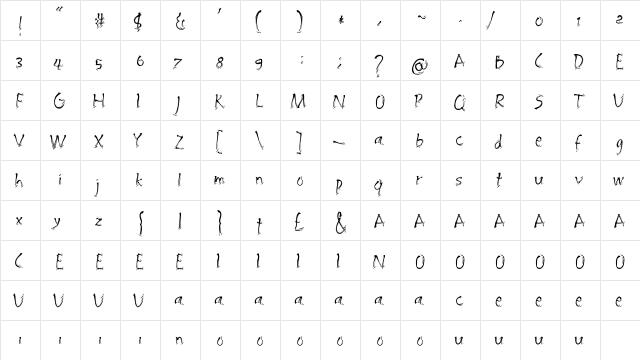
Embrush Regular
Design Context for Embrush Typeface
Embrush flows with the natural rhythm of handwritten lettering, making it ideal for designs that call for warmth and personal expression.
Font Pairing: Combine Embrush with a simple geometric sans for maximum contrast — the tension between flowing curves and clean structure is a classic typographic pairing.
Pro Tip: Pair Embrush with a clean sans-serif for supporting text. The contrast between fluid script and geometric structure creates an elegant typographic hierarchy.